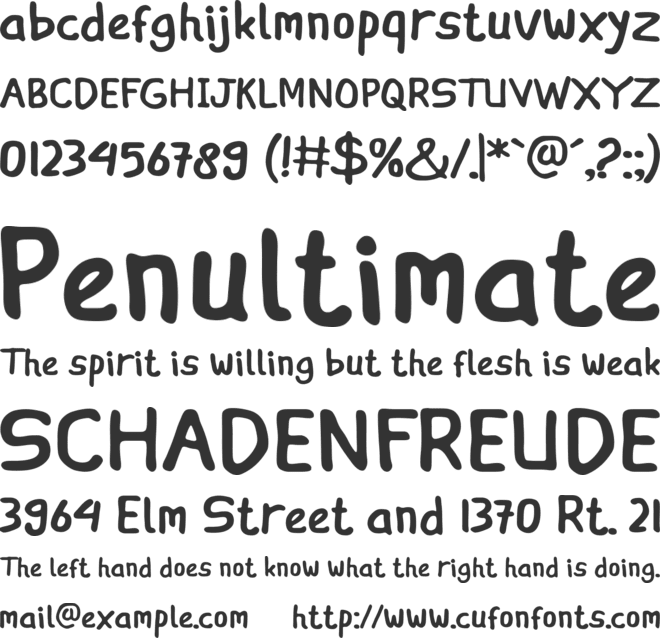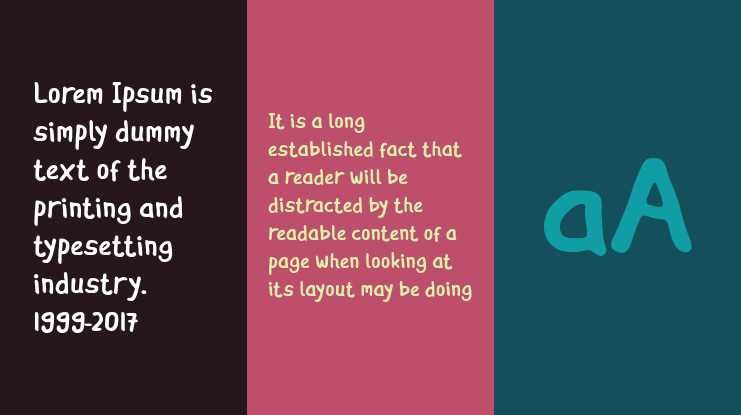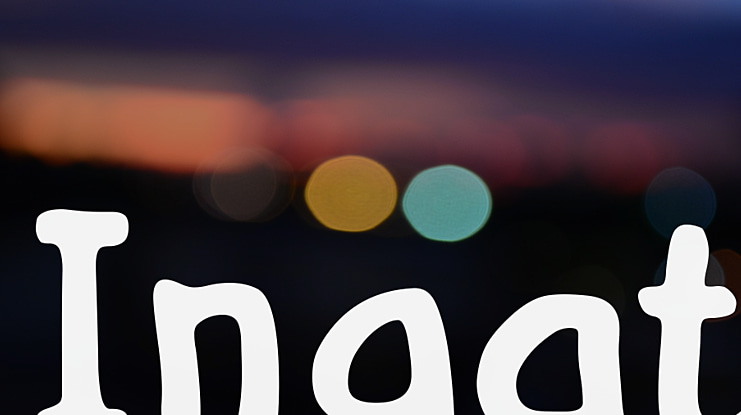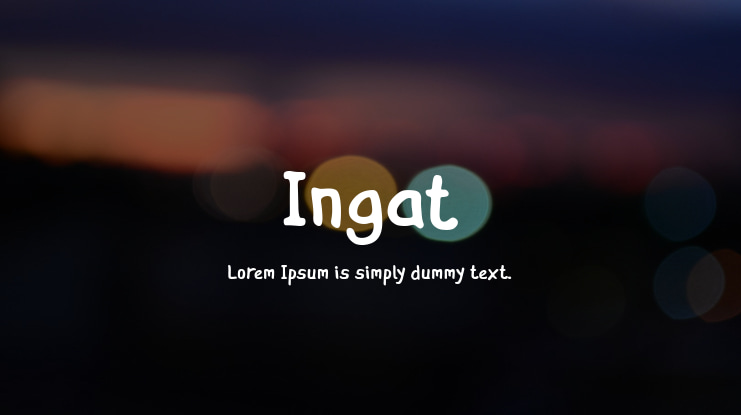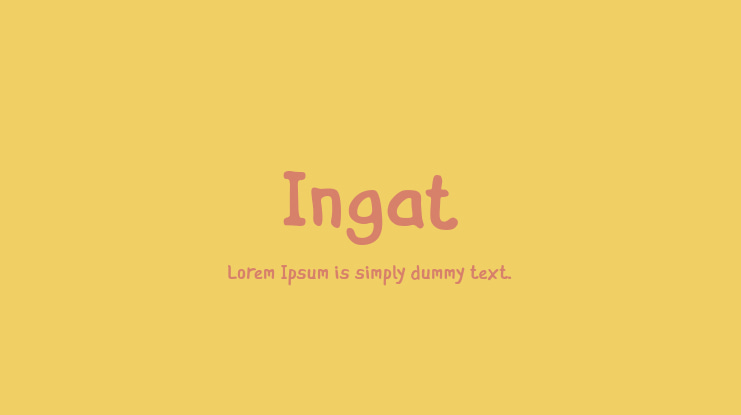
Ingat Font Family
Andrian Dehasta, Situjuh Nazara
Ingat © 7NTypes. 2017. All Rights ReservedAndrian Dehasta & Situjuh Nazara designed the Ingat Font as a friendly looking handmade font, one that is appropriate for many design categories, most notably children’s designs.Ingat font is a highly legible and casually styled font that will add joy to your creative projects.LicenseFREE for Personal use. If you love this font and want us to create more free for personal use font, support us by donating as much as you wish to donate via Paypal www.paypal.me/Situjuh (https://www.paypal.me/Situjuh) or hit the donation button where you download this font.BUY for Commercial use, visit: 7ntypes.com (https://7ntypes.com)Thank you